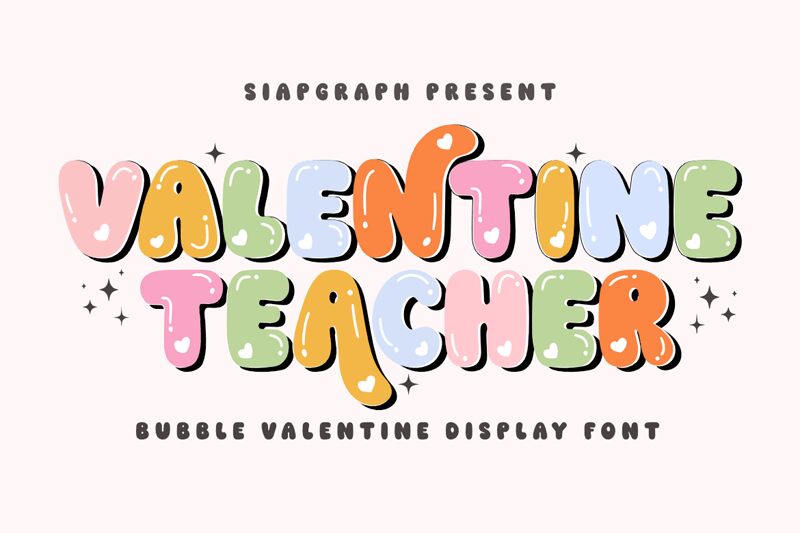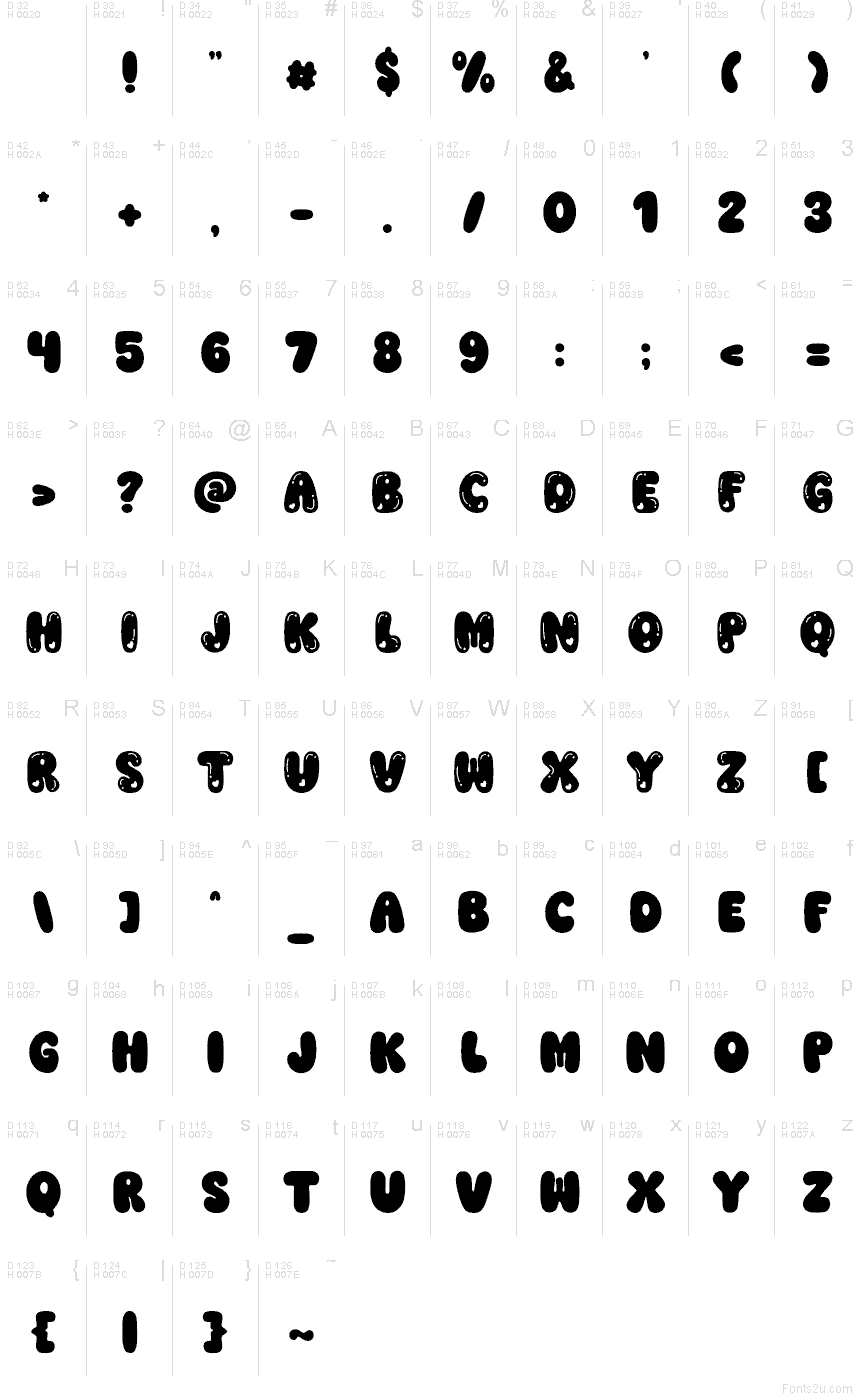
Valentine Teacher Regular
Valentine Teacher font by Muhammad Afif of SlapGraph is a free holiday Valentine decorative font that looks like it was hand-cut from glossy craft paper. The chunky rounded letters are packed with tiny heart cutouts and bold, inky curves, giving every word a bubbly, candy-like feel. It reads as playful and warm rather than overly romantic, making it just as at home in the classroom as on a love note.
Using Valentine Teacher, you can instantly dress up Valentine cards, classroom posters, student worksheets, stickers, party invitations, and social media graphics. This free font shines when you set it big and let the heart details breathe, then pair it with a clean sans serif for smaller supporting text.